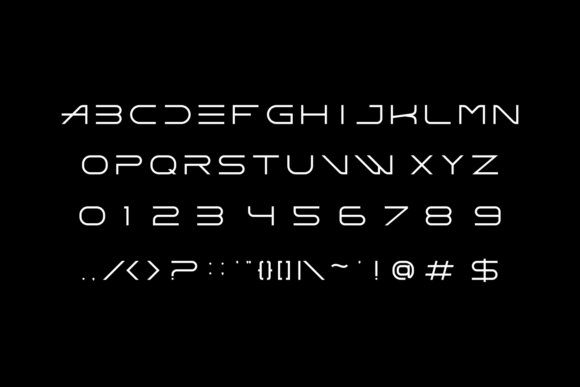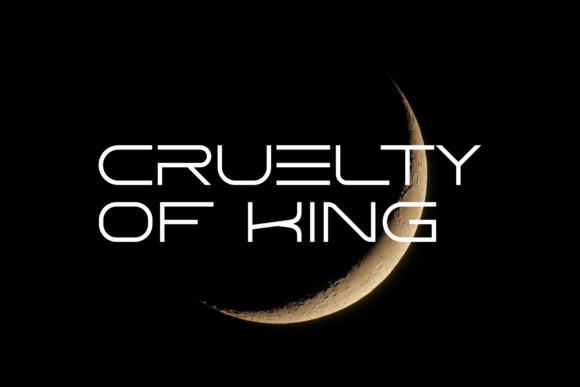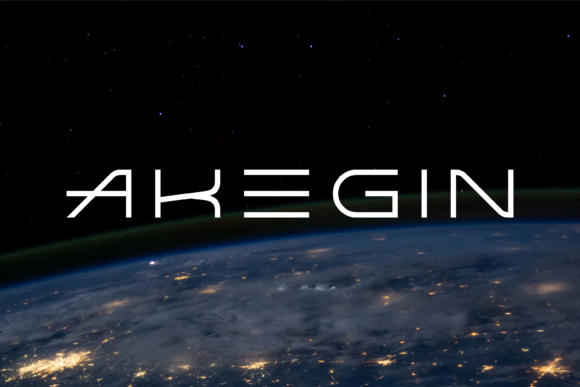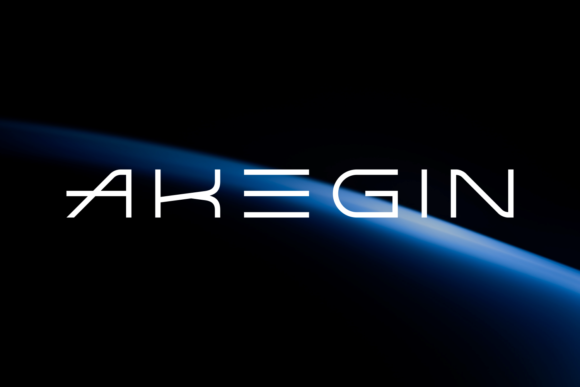
Introducing Akegin Font: The Modern and Casual Display Font for Creative Projects
In the world of typography, fonts play a crucial role in conveying the tone and personality of a brand. For designers and crafters, finding the perfect font for their projects can be a daunting task. However, if you’re looking for a modern and casual display font that can elevate your branding projects, look no further than Akegin Font. In this article, we’ll explore the features and benefits of Akegin Font and why it’s perfect for logos, t-shirt printing, creative products, and more.
What is Akegin Font?
Akegin Font is a modern and casual display font designed to make a statement. Its unique and stylish letterforms make it perfect for creative projects that require a touch of personality. Whether you’re working on a branding project, a t-shirt design, or a creative product, Akegin Font is sure to impress. Its clean and simple design ensures that it can be used in a variety of contexts, from digital platforms to print materials.
Key Features of Akegin Font
- Modern and Casual Design: Akegin Font boasts a modern and casual design that’s perfect for creative projects. Its unique letterforms and clean lines make it stand out from traditional fonts.
- Versatile: Akegin Font is versatile and can be used in a variety of contexts, from logos and t-shirt printing to creative products and more.
- Easy to Read: Despite its stylish design, Akegin Font is easy to read, making it perfect for body text and headlines.
- High-Quality: Akegin Font is a high-quality font that’s designed to deliver exceptional results in both digital and print formats.
Why Choose Akegin Font?
So, why choose Akegin Font for your creative projects? Here are a few reasons:
- Unique and Stylish: Akegin Font is a unique and stylish font that can help your brand stand out from the competition.
- Time-Saving: With Akegin Font, you can save time and effort in finding the perfect font for your project. Its versatility and ease of use make it a great choice for designers and crafters.
Use Cases for Akegin Font
Akegin Font is perfect for a variety of creative projects, including:
- Logos: Akegin Font is perfect for creating unique and stylish logos that can help your brand stand out.
- T-Shirt Printing: With its bold and casual design, Akegin Font is perfect for t-shirt printing projects.
- Creative Products: Akegin Font can be used to create a variety of creative products, such as posters, flyers, and brochures.
- Digital Platforms: Akegin Font can be used on digital platforms, such as websites, social media, and email marketing campaigns.
Tips for Using Akegin Font
Here are a few tips for using Akegin Font effectively:
- Use it Boldly: Akegin Font is perfect for headlines and titles. Use it boldly to make a statement.
- Experiment with Colors: Akegin Font looks great in a variety of colors. Experiment with different colors to find the perfect combination for your project.
- Pair it with Other Fonts: Akegin Font can be paired with other fonts to create a unique and stylish combination.